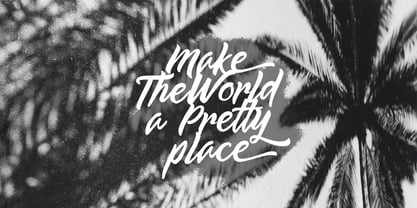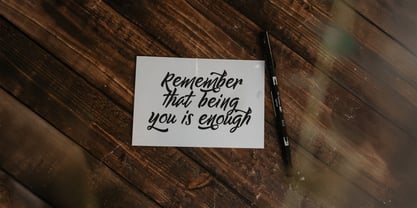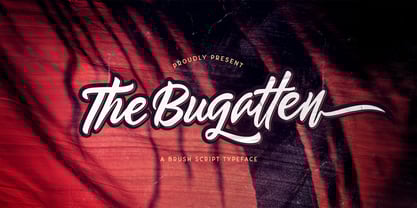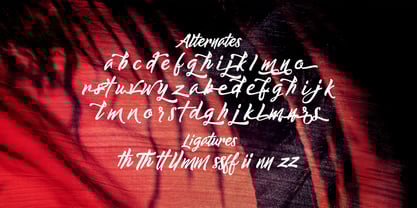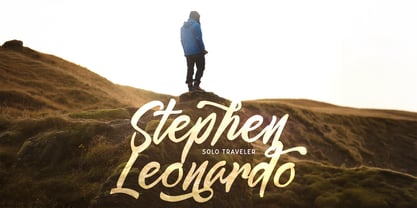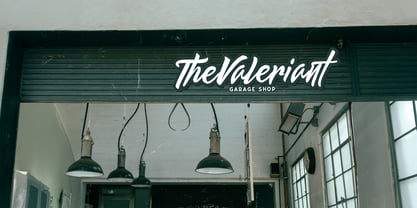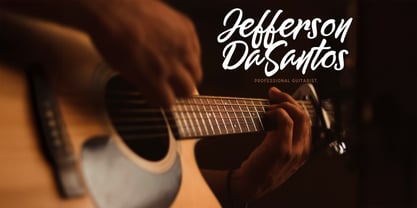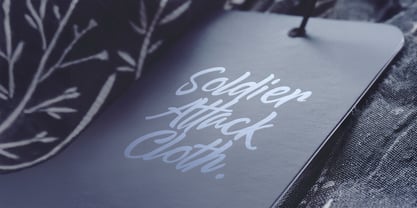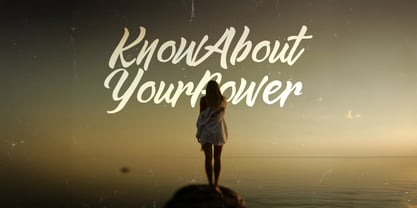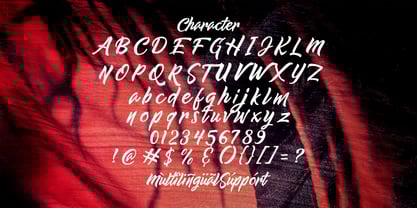
The Bugatten
The The Bugatten Font Family was designed by Virgiawan Listanto and published by Stringlabs Creative Studio. The Bugatten contains 1 styles. More about this family
The Bugatten is a bold script font with a unique vintage look. It will elevate a wide range of design projects to the highest level, be it branding, headings, logos, labels, and much more!